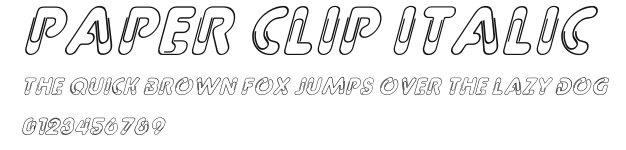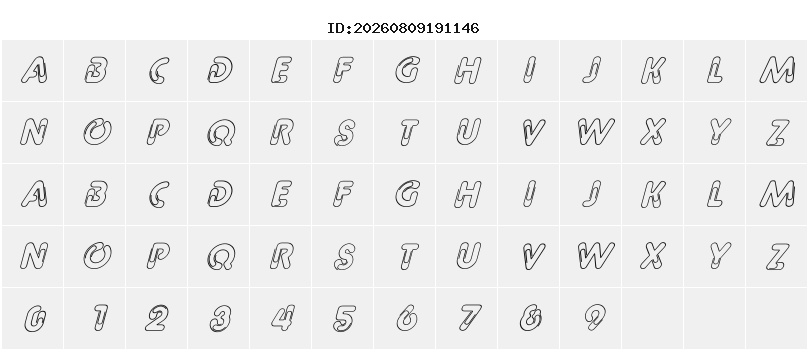
• Font Name: Paper Clip Italic
• Full Font Name: Paper Clip Italic
About Paper Clip Italic.ttf
Paper Clip Italic.ttf is a modern, elegant sans-serif font designed for ultimate readability and visual harmony. Perfect for branding, headlines, web design, and print materials.